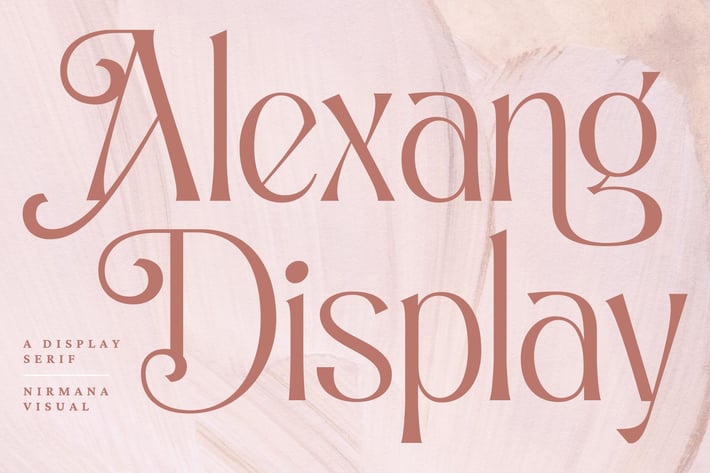
Alexang Display - Retro Font
Alexang Display , contemporary of Serif font,
Alexang Display offers beautiful typographic harmony for a diversity of design projects, including logos & branding, social media posts, advertisements & product designs.